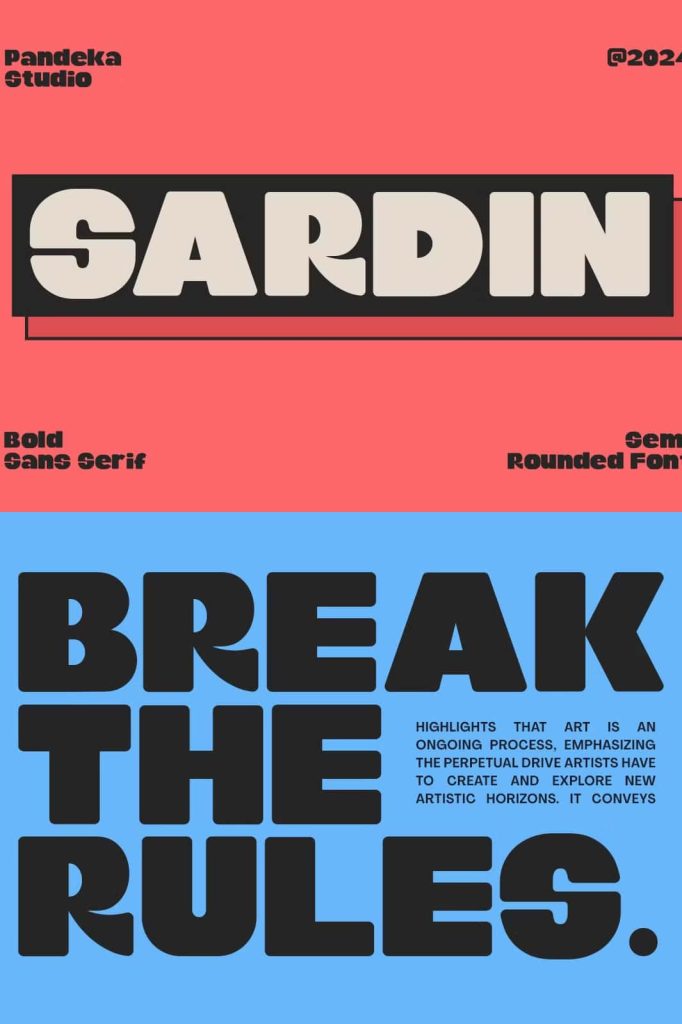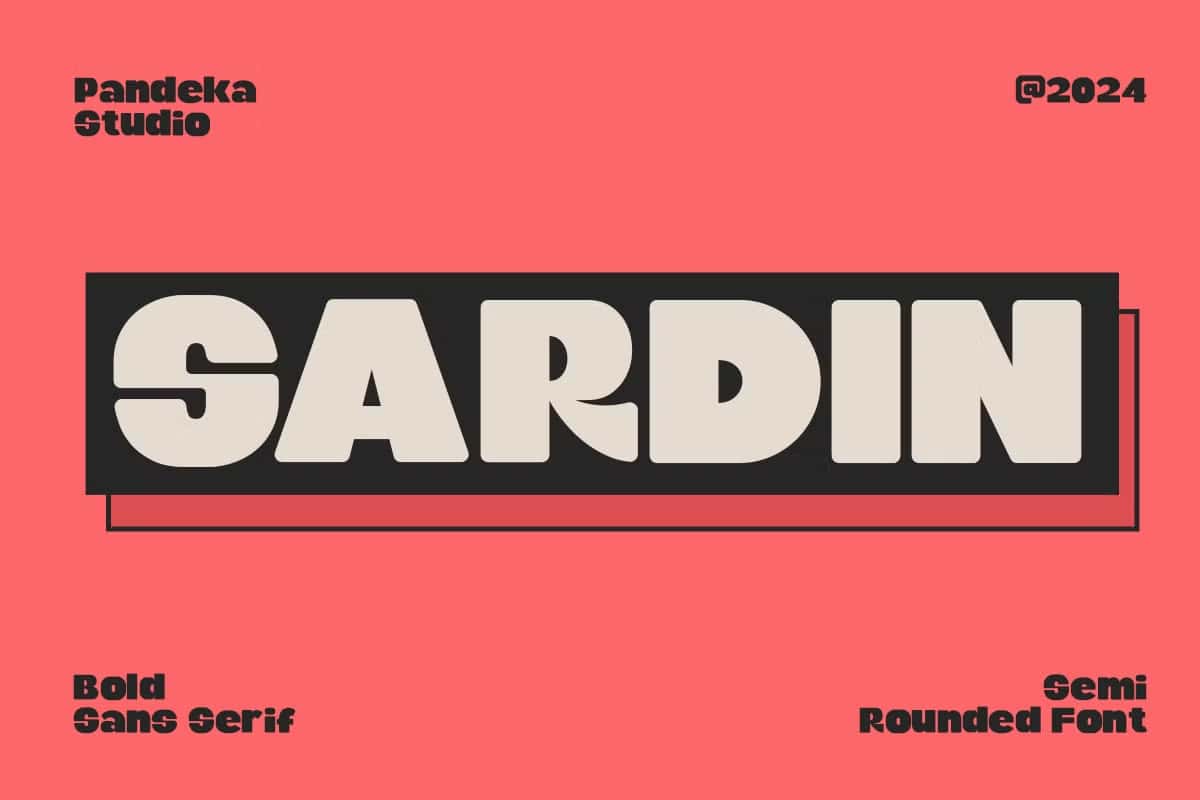
Sardin Typeface: A Playful Cartoon-Inspired Font with Modern Versatility
Sardin is a dynamic and expressive typeface designed in late 2023 and officially published in May 2024. Drawing strong inspiration from the playful spirit of 1990s cartoons and classic comic books, this typeface delivers energy, character, and visual excitement to contemporary design projects. Sardin captures the bold attitude and joyful exaggeration of retro animation while adapting it for modern creative needs.
This font family is built for designers who want their typography to feel lively, confident, and memorable. By combining nostalgic influences with clean and functional letterforms, Sardin makes it easy to create eye-catching designs without sacrificing readability or flexibility.
Inspired by 90s Cartoons and Comic Book Culture
The creative foundation of Sardin lies in the vibrant visual language of 1990s cartoons and comic books. This era was defined by bold outlines, playful proportions, and expressive lettering that communicated emotion and movement. Sardin translates these iconic elements into a cohesive typeface that feels both fun and purposeful.
Each character features strong shapes and balanced curves that reflect cartoon-style exaggeration while remaining polished enough for professional use. The result is a font that instantly grabs attention and evokes nostalgia, making it perfect for projects that aim to feel youthful, energetic, and full of personality.
An All-in-One Typeface for Complete Typography Systems
Sardin is designed as a comprehensive typography solution, offering everything you need to build strong and consistent visual hierarchies. From bold headline styles to clean and readable body text, this typeface allows designers to manage entire projects using a single font family. This all-in-one approach ensures visual harmony and simplifies the design process.
Bold Headlines That Command Attention
Sardin excels in headline and display typography. Its playful structure and confident weight make it ideal for titles, posters, banners, and promotional materials. Headlines created with Sardin feel expressive and powerful, instantly drawing the viewer’s eye and setting the tone for the entire design.
The font’s cartoon-inspired DNA helps headlines communicate excitement and fun, making it especially effective for entertainment, children’s content, gaming, food packaging, and creative advertising.
Readable Body Text with Personality
While Sardin shines in display settings, it also performs exceptionally well as body text. The carefully crafted letterforms maintain clear spacing and consistent proportions, ensuring comfortable reading across print and digital platforms. This balance allows designers to use Sardin for longer text sections without overwhelming the viewer.
Using the same typeface for both headlines and body text creates a cohesive and professional appearance, helping brands and projects maintain a strong visual identity.
Perfect for Creative, Digital, and Commercial Projects
Sardin adapts effortlessly to a wide range of creative applications. It works beautifully for branding, logo design, merchandise, social media graphics, websites, mobile apps, packaging, and editorial layouts. Its playful yet structured style allows it to communicate creativity while remaining versatile enough for commercial use.
Designers can confidently use Sardin in digital environments such as websites, online campaigns, video thumbnails, and user interfaces. Its bold shapes and clear forms ensure strong visibility across screens of all sizes.
Why Choose the Sardin Typeface
Sardin stands out as a modern typeface that celebrates fun, creativity, and nostalgic inspiration. It empowers designers to build expressive typography systems without needing multiple fonts. The combination of playful cartoon influence and practical usability makes it a valuable tool for both creative experimentation and professional design workflows.
If you are looking for a typeface that blends 90s cartoon energy with modern versatility, Sardin is an excellent choice. It delivers bold personality, functional design, and complete typographic control, helping your projects stand out with confidence and visual impact.